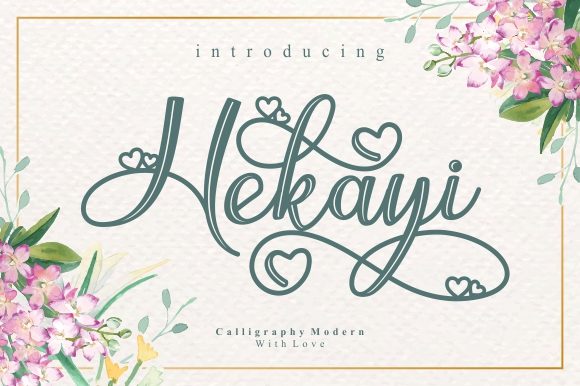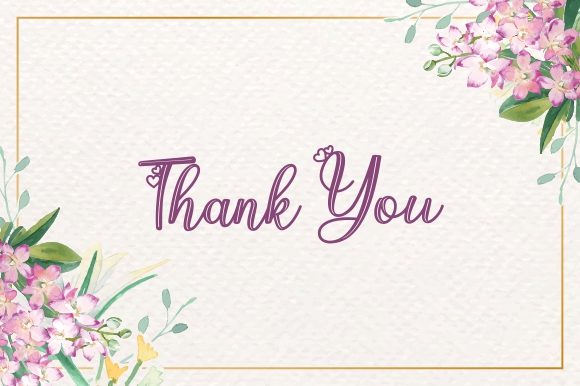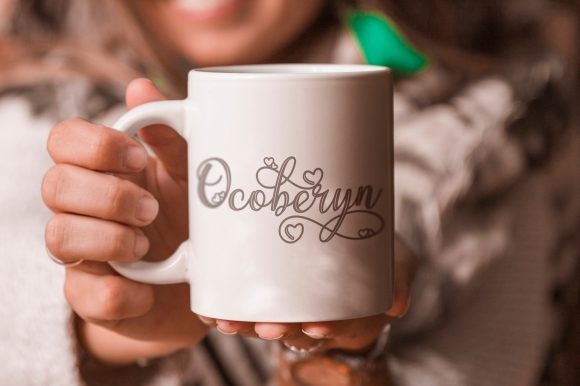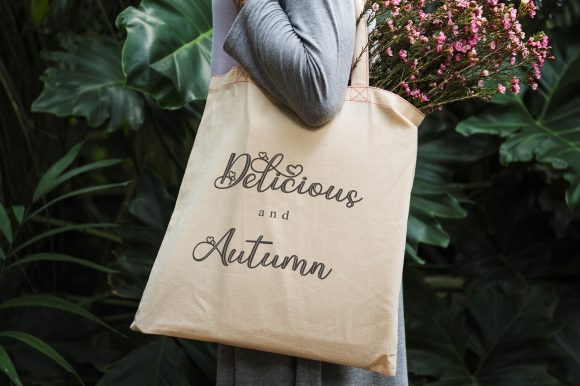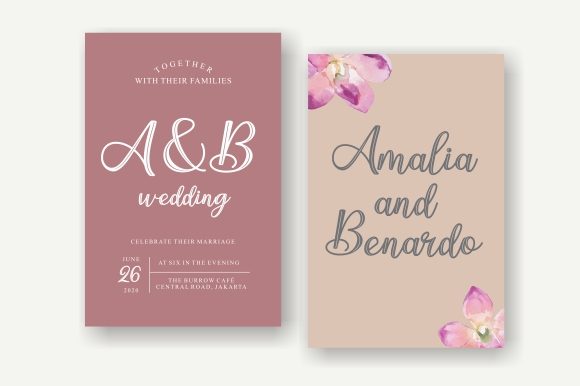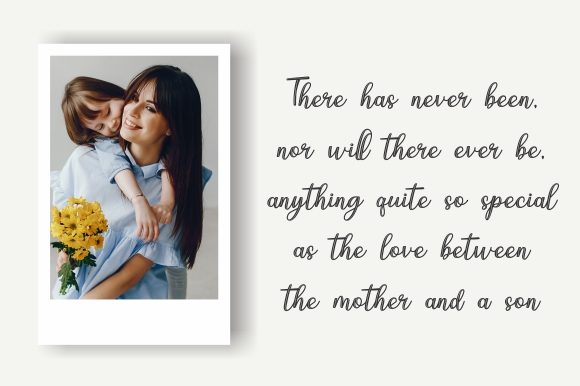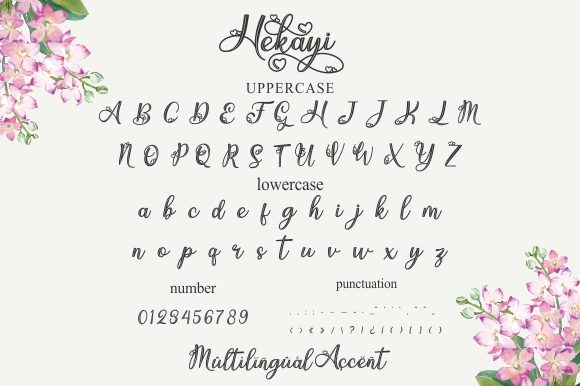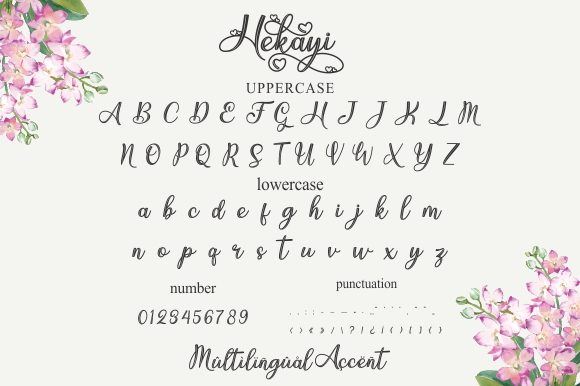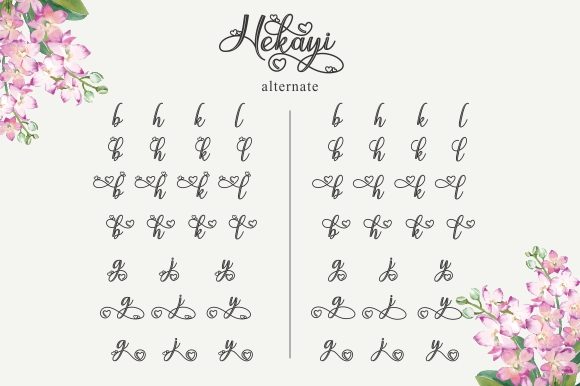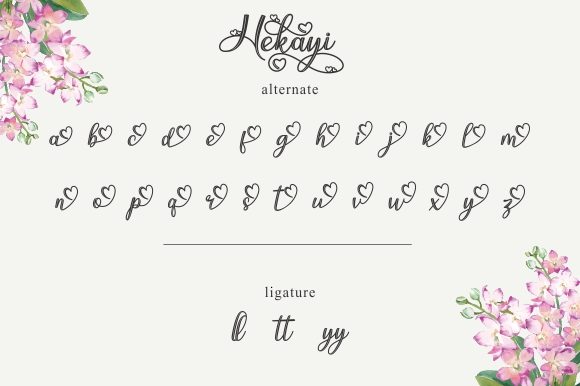
Hekayi Font
Hekayi is an incredibly beautiful handwritten font, inspired by classic calligraphy. This font is PUA encoded which means you can access all of the glyphs and swashes with ease! It features a varying baseline, smooth lines, gorgeous glyphs and stunning alternates. Fall in love with its incredibly versatile style and use it to create gorgeous wedding invitations, beautiful stationary art, eye-catching social media posts, and much more!